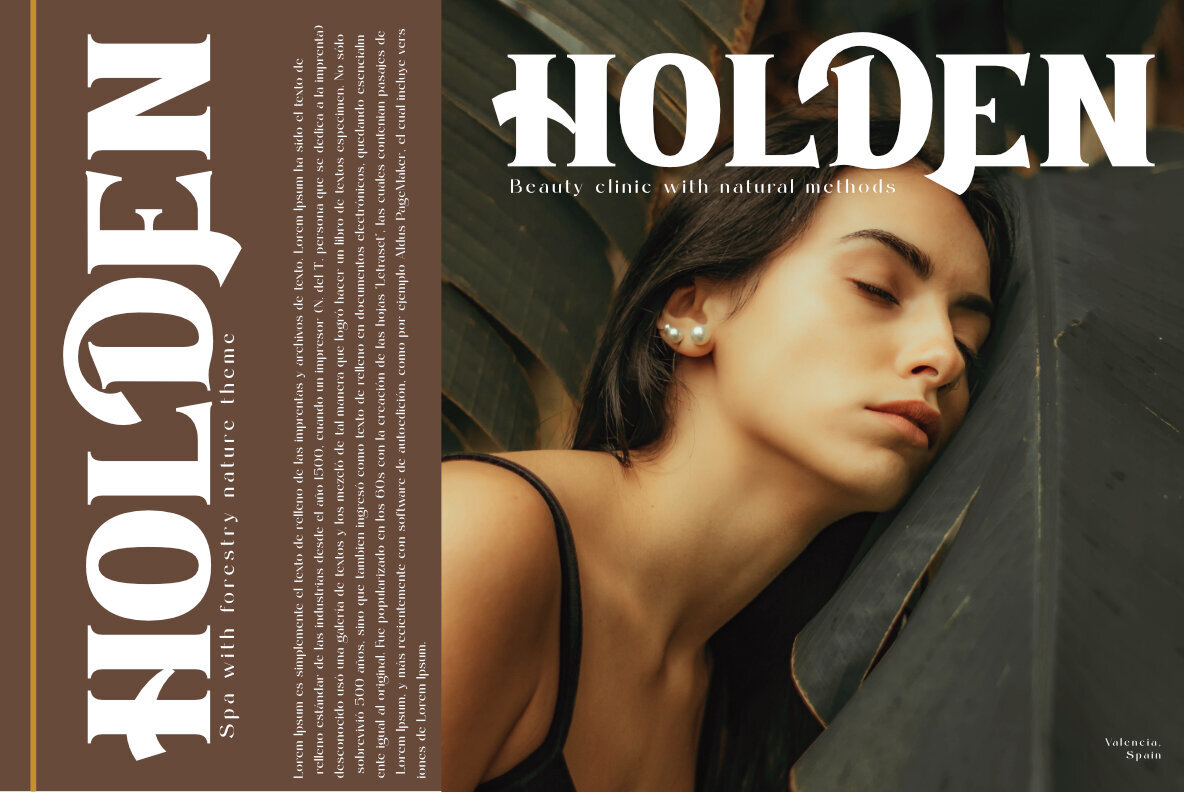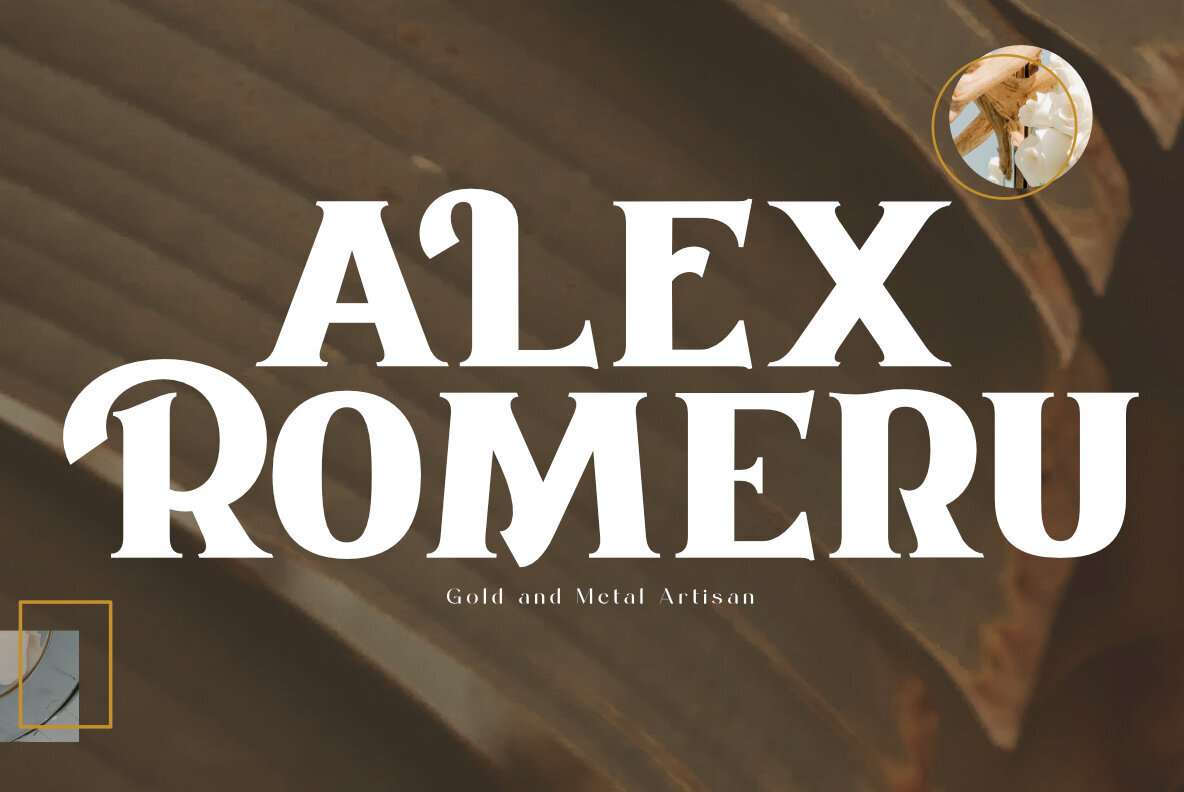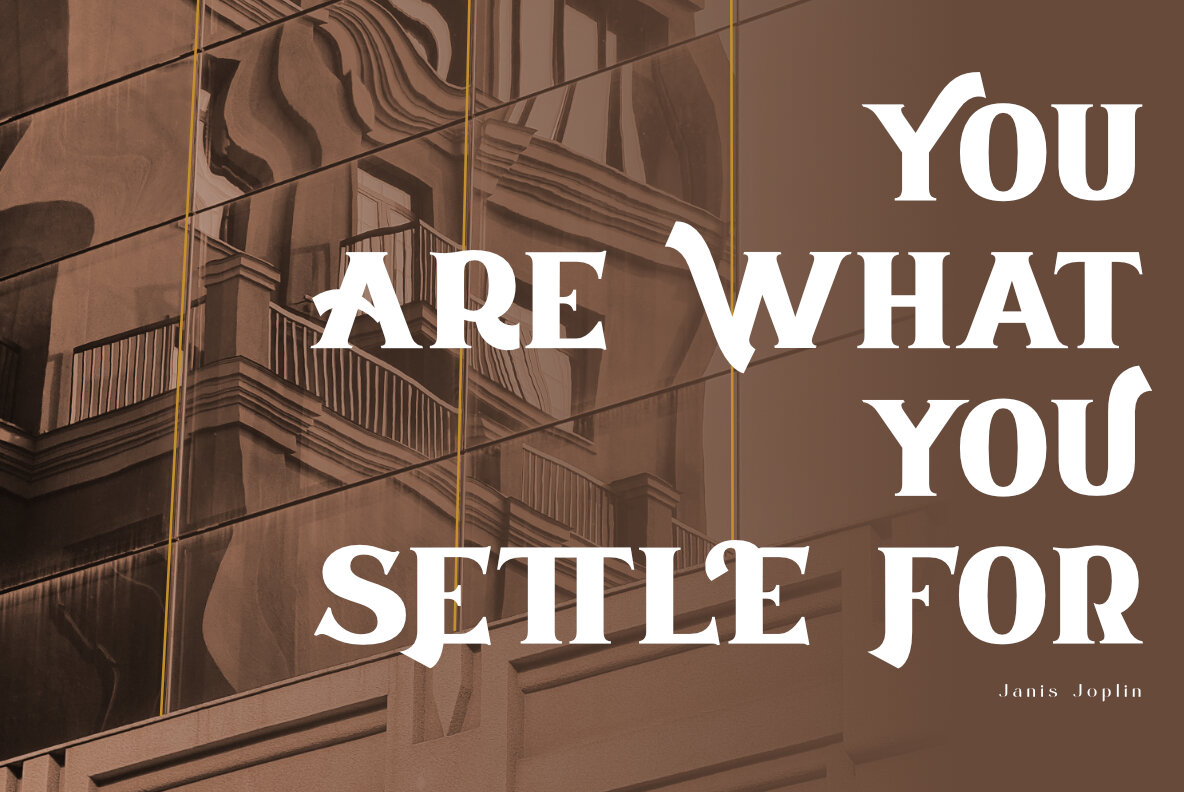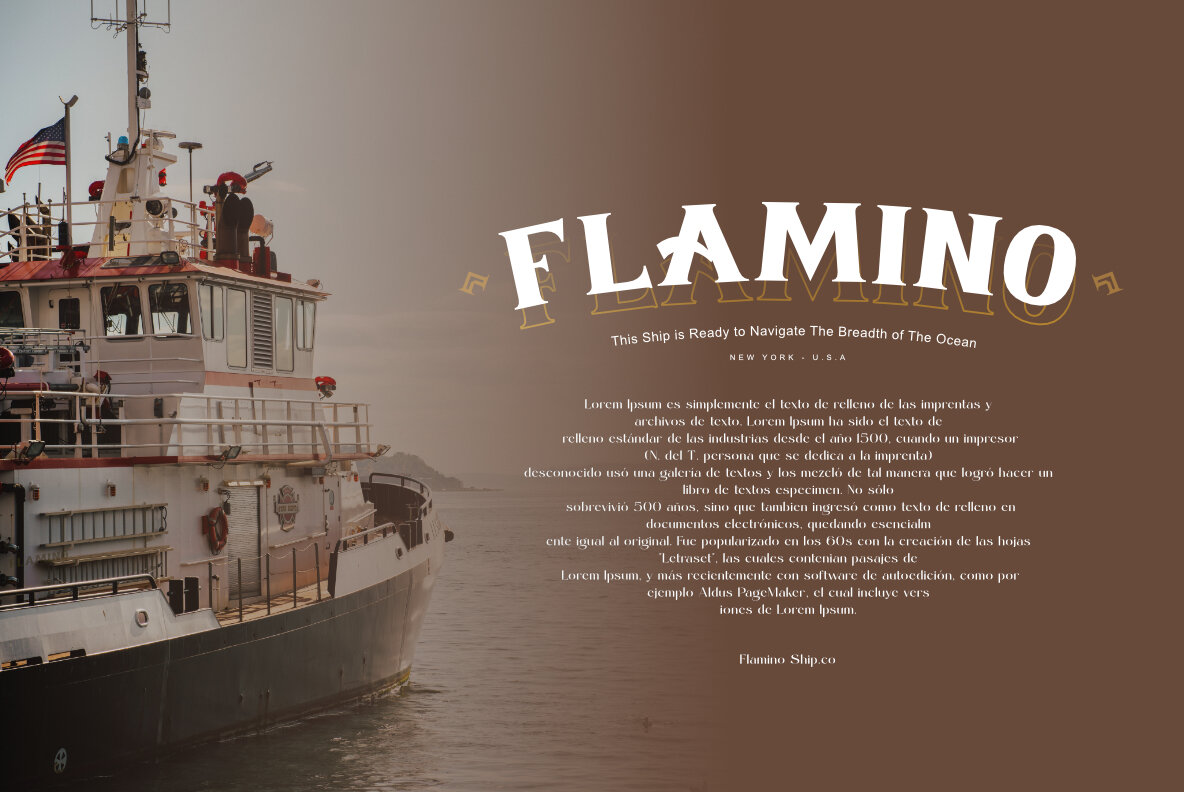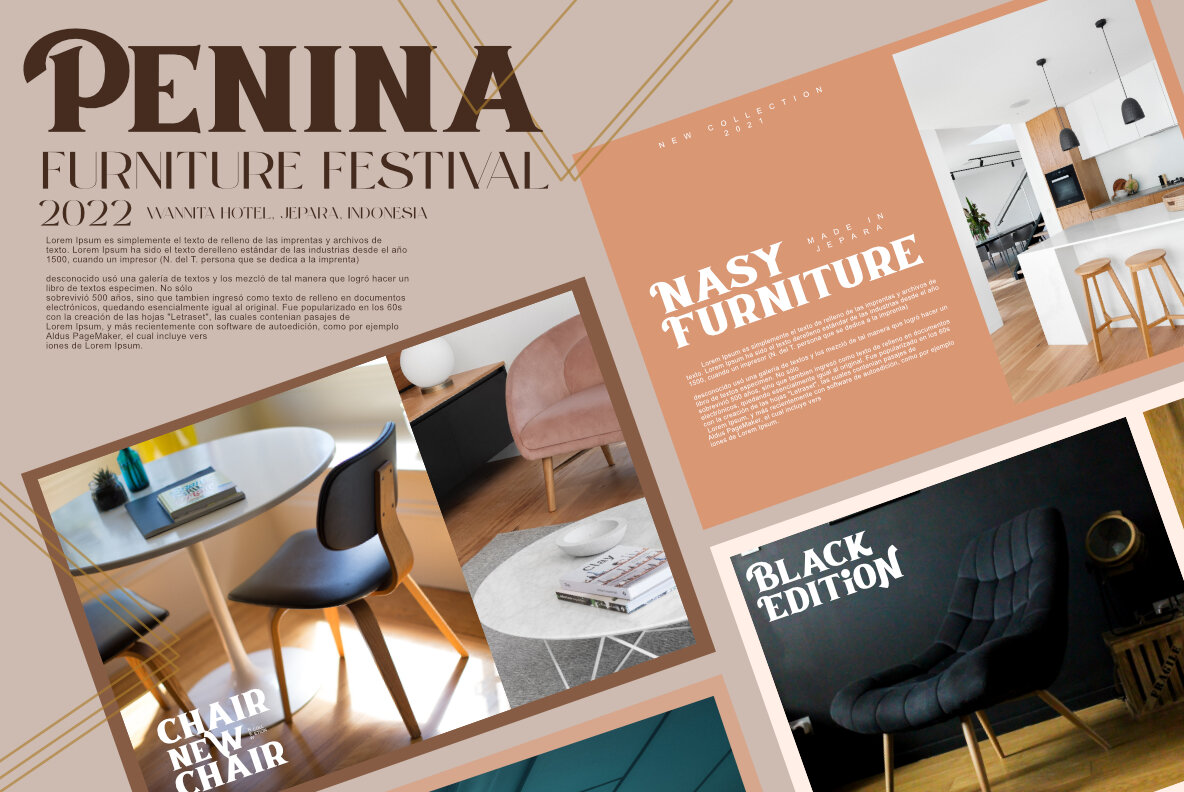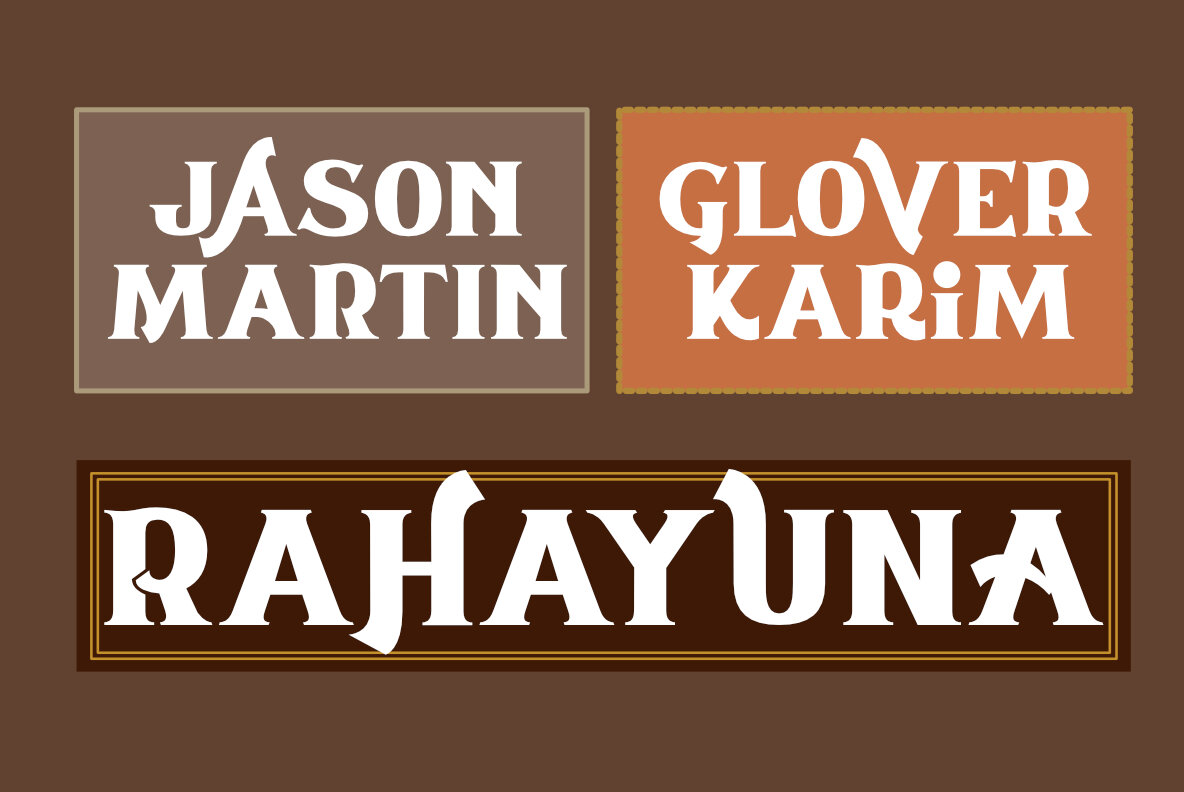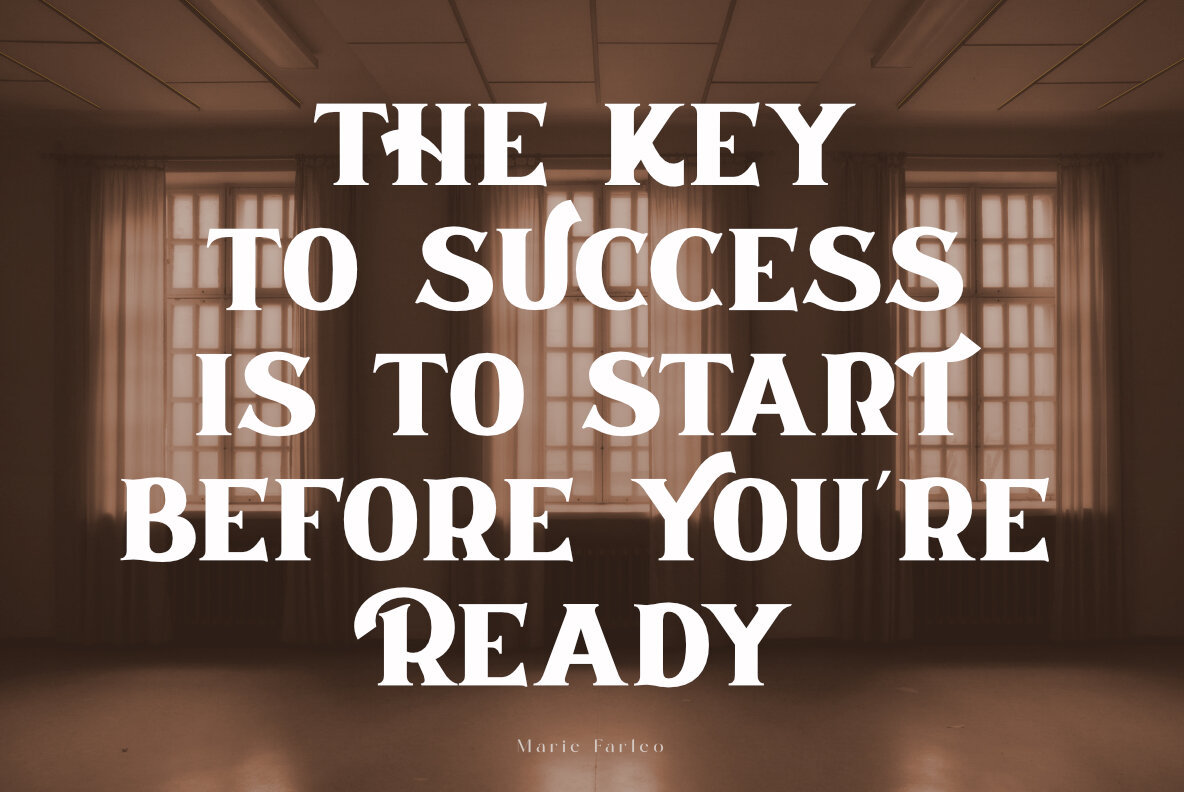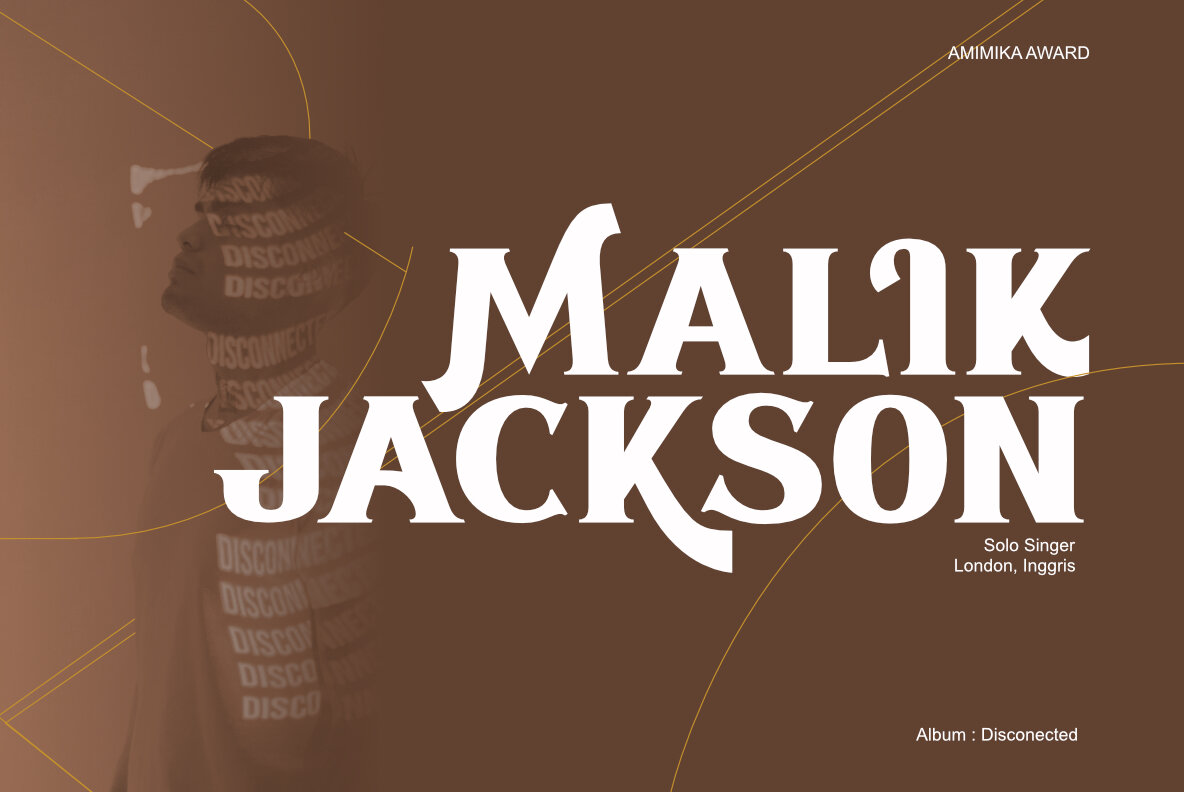
Penina Font
PENINA
Penina, a serif font by Khoir Typework, seamlessly blends classic elegance with a modern edge. Its robust lettering transports you to days past, while the presence of sleek alternative characters injects an intriguing flair. Ideal for branding, packaging, logos, and a myriad of design projects, Penina offers versatility and sophistication in its every stroke.Penina: A Classically-Inspired Serif